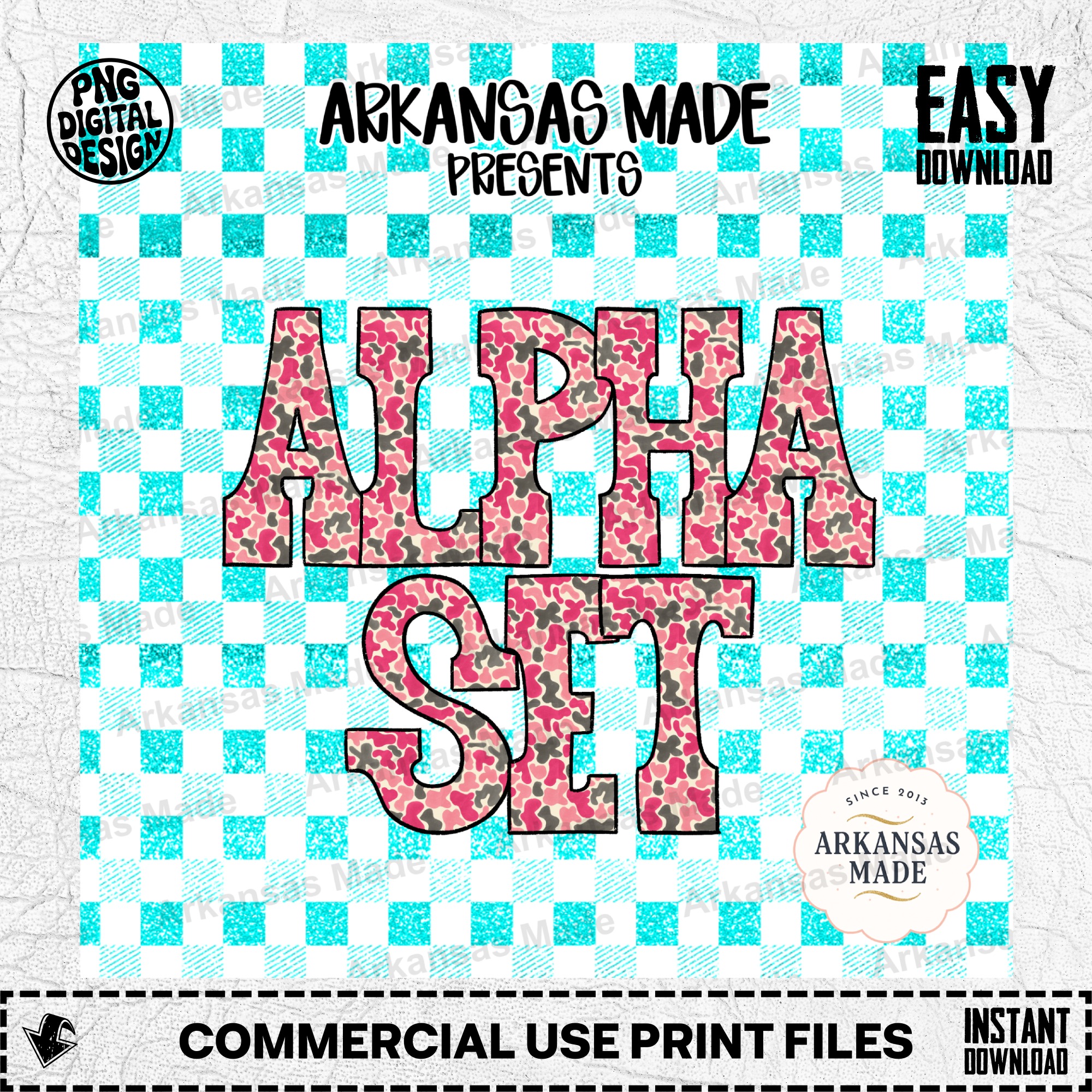
Pink Camouflage Alpha PNGs Set, Girly Camo Letters Digital Alphabet, Country Girl Font Sublimation Design Bundle for Custom T-Shirts
Get our Pink Camouflage Alpha PNGs Set! This girly camo digital alphabet is perfect for sublimation, DIY crafts, and custom designs, adding country charm. Embrace a bold, feminine style with this vibrant pink camouflage digital alphabet. These unique alpha PNGs are perfect for crafters and designers who love rustic chic or southern flair, ideal for personalized gifts, custom apparel, tumblers, and scrapbooking for birthdays, bachelorette parties, or sorority sisters.